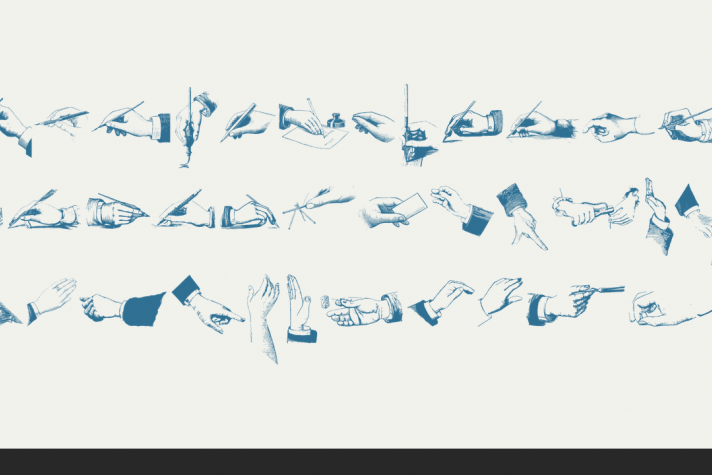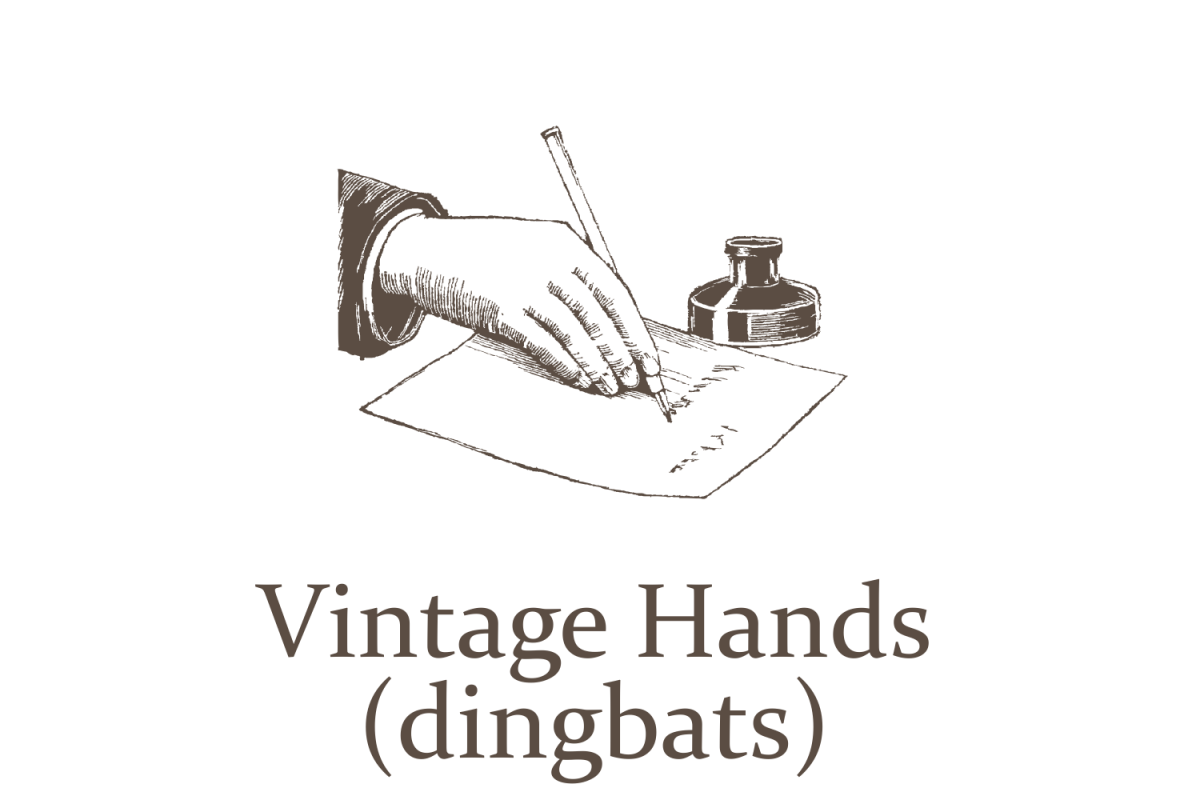
Vintage Hands
Vintage Hands is a collection of pointing hand illustrations, suitable for modern designs. The hands has pointing, counting, signaling, demonstrating, writing, playing and other positions.